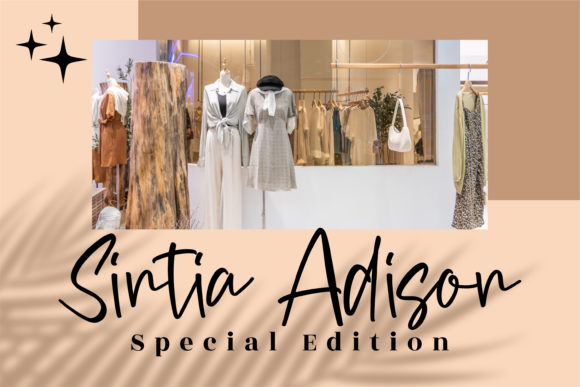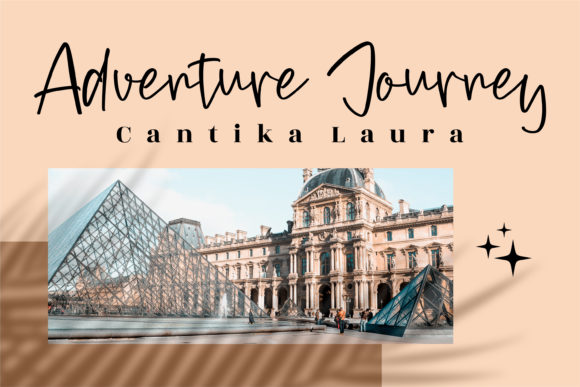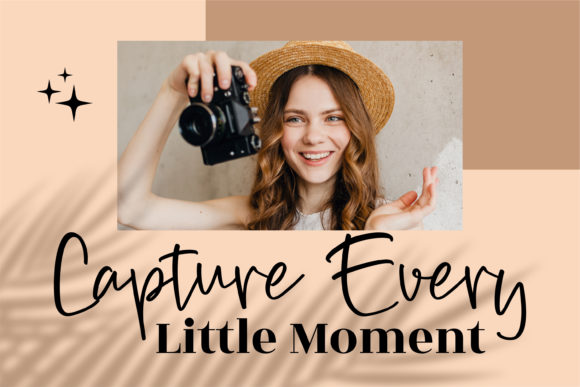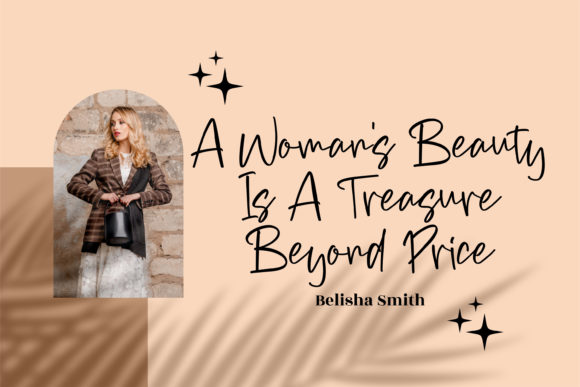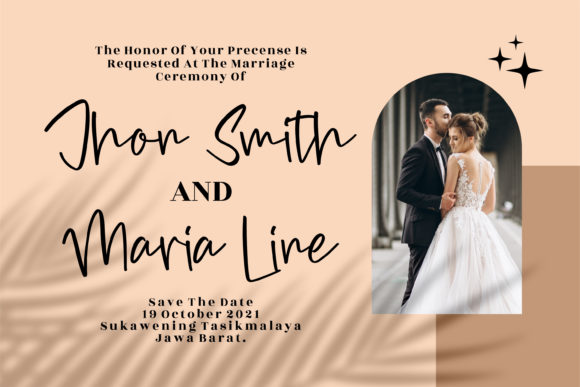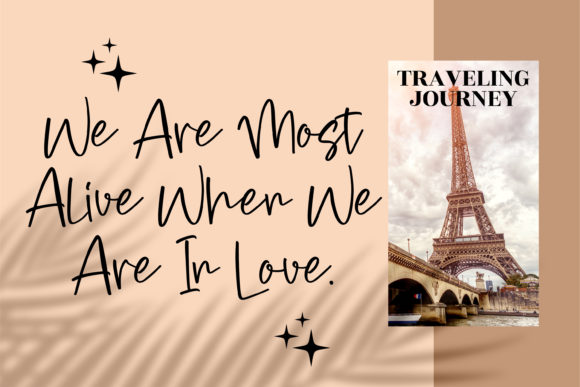
Dreams Kuliah Font: The Ultimate Guide to Adding a Touch of Romance to Your Designs
Are you a designer or crafter looking for a font that can add a touch of romance and whimsy to your projects? Look no further than Dreams Kuliah Font. This relaxed and versatile script font is perfect for a wide range of applications, from greeting cards to headlines, and is sure to bring a sense of elegance and sophistication to your designs.
What is Dreams Kuliah Font?
Dreams Kuliah Font is a beautifully crafted script font that is characterized by its relaxed and whimsical feel. With its flowing lines and elegant curves, this font is perfect for adding a touch of romance and sophistication to any design project. Whether you’re working on a greeting card, a headline, or a full-scale branding project, Dreams Kuliah Font is the perfect choice.
Key Features of Dreams Kuliah Font
So what makes Dreams Kuliah Font so special? Here are just a few of its key features:
- Relaxed and Whimsical Feel: Dreams Kuliah Font has a unique and playful feel that is sure to add a touch of personality to your designs.
- Versatile: This font is perfect for a wide range of applications, from greeting cards to headlines, and can be used in both digital and print projects.
- Romantic and Elegant: With its flowing lines and elegant curves, Dreams Kuliah Font is the perfect choice for adding a touch of romance and sophistication to your designs.
Uses for Dreams Kuliah Font
So what can you use Dreams Kuliah Font for? The possibilities are endless! Here are just a few ideas to get you started:
- Greeting Cards: Add a touch of romance and whimsy to your greeting cards with Dreams Kuliah Font.
- Headlines: Use Dreams Kuliah Font to create eye-catching headlines that are sure to grab attention.
- Branding Projects: This font is perfect for branding projects, such as logos, business cards, and letterheads.
- Digital Projects: Dreams Kuliah Font can be used in a wide range of digital projects, including social media graphics, blog posts, and more.
Tips for Using Dreams Kuliah Font
Here are a few tips for getting the most out of Dreams Kuliah Font:
- Use it Sparingly: While Dreams Kuliah Font is beautiful, it can be overwhelming if used too much. Use it sparingly to add a touch of elegance and sophistication to your designs.
- Pair it with Other Fonts: Dreams Kuliah Font pairs well with a wide range of other fonts. Experiment with different pairings to find the perfect combination for your project.
- Experiment with Colors: This font looks beautiful in a wide range of colors. Experiment with different colors to find the perfect look for your project.
Dreams Kuliah Font is a beautiful and versatile script font that is perfect for adding a touch of romance and whimsy to your designs. With its relaxed and elegant feel, this font is sure to bring a sense of sophistication and elegance to your projects. Whether you’re a designer or crafter, Dreams Kuliah Font is a must-have font that is sure to become a staple in your collection.